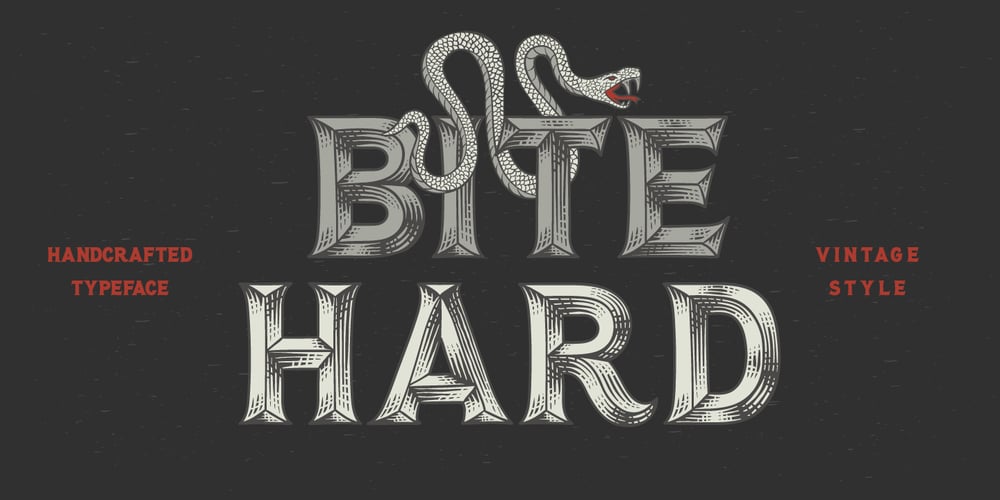
Bite Hard
Bite Hard font
Bite Hard Font Family was designed by Gleb Guralnyk and published by Gleb Guralnyk. Bite Hard contains 4 styles and family package options. Hi! Introducing handcrafted high detailed font BITE HARD. It has four variations to help you easy recolor and combine lettering compositions